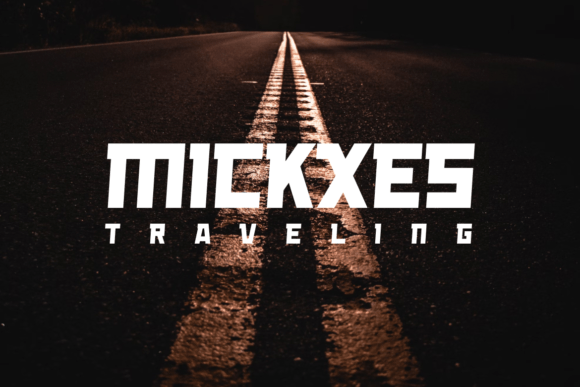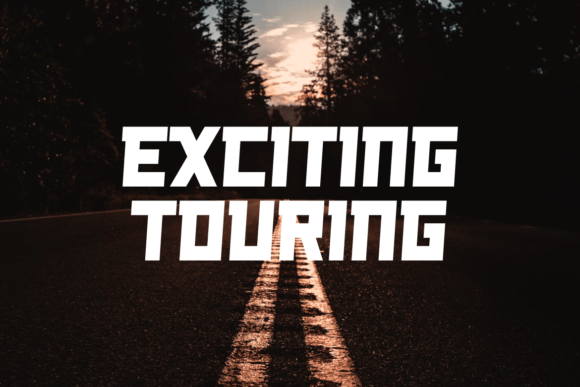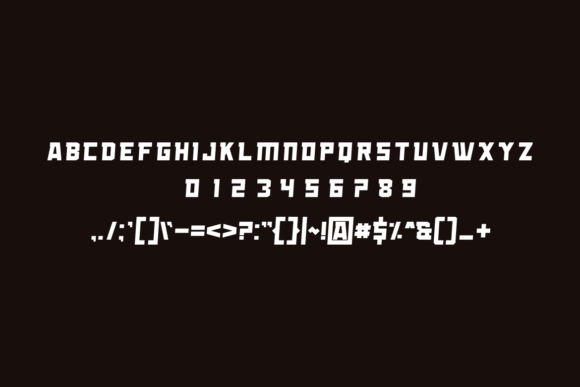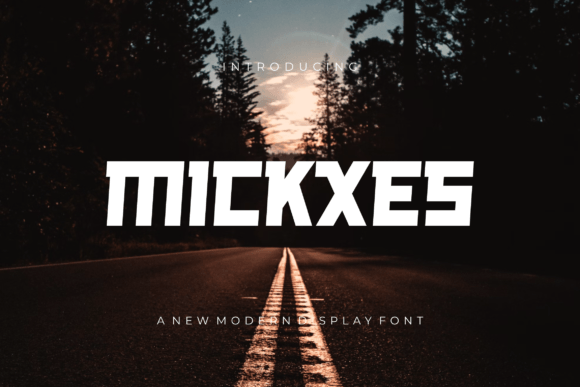
Introduction to Mickxes Font
Mickxes is a bold, modern font with a blocky style.
It features clean, straight lines and a strong, geometric look, making it perfect for eye-catching headlines and displays .
Mickxes Font offers exceptional quality and versatility, making it a valuable addition to your design toolkit. Whether you’re creating for personal projects or commercial use, Mickxes Font delivers professional results.